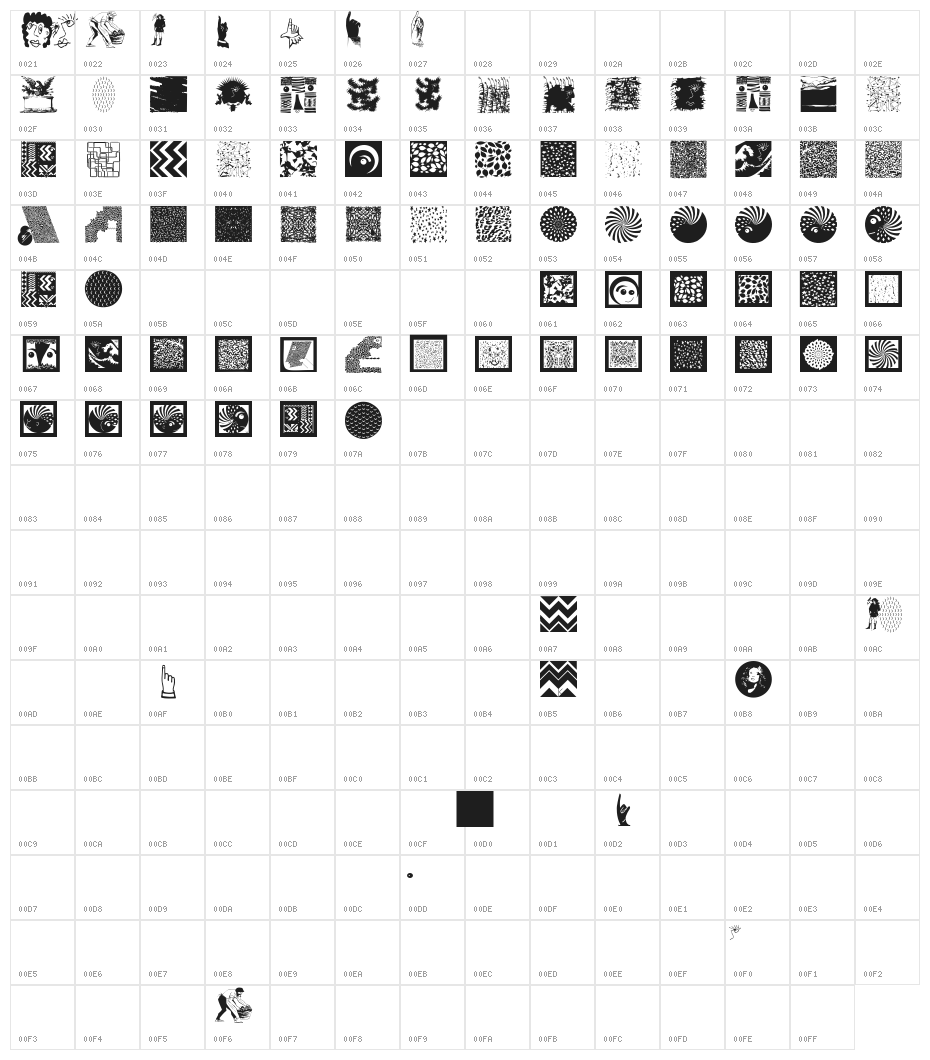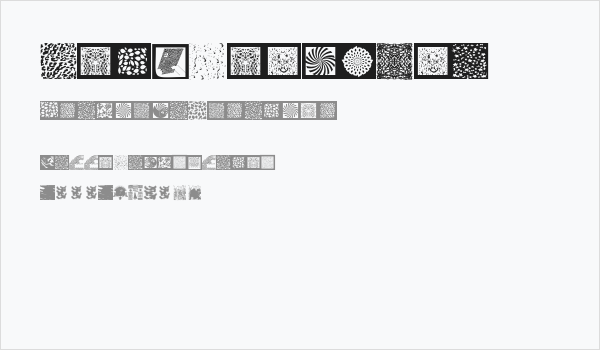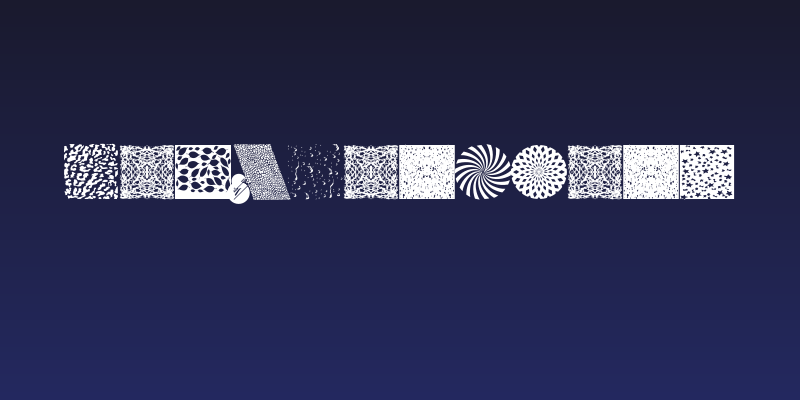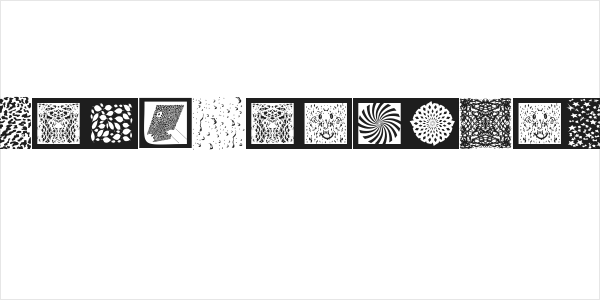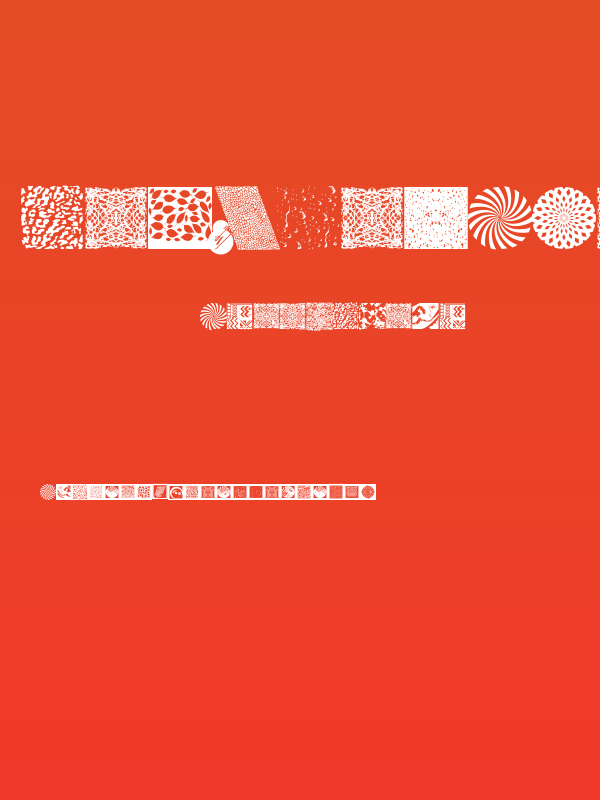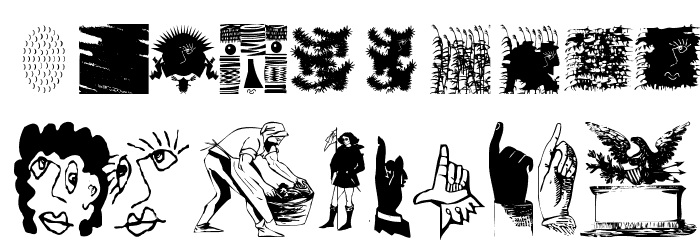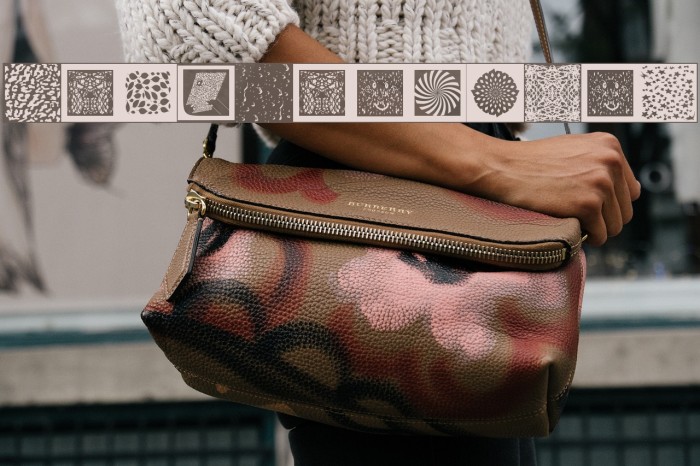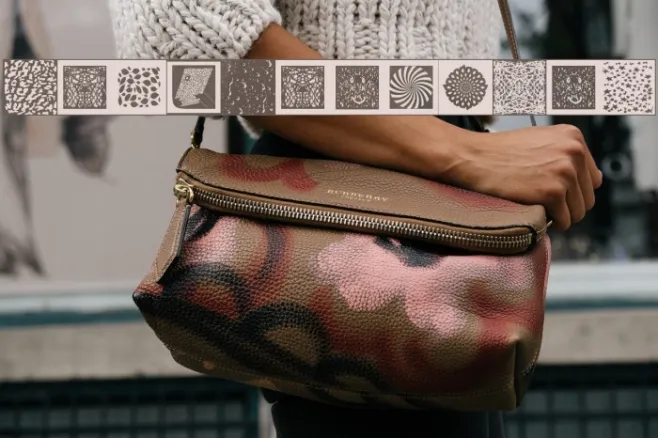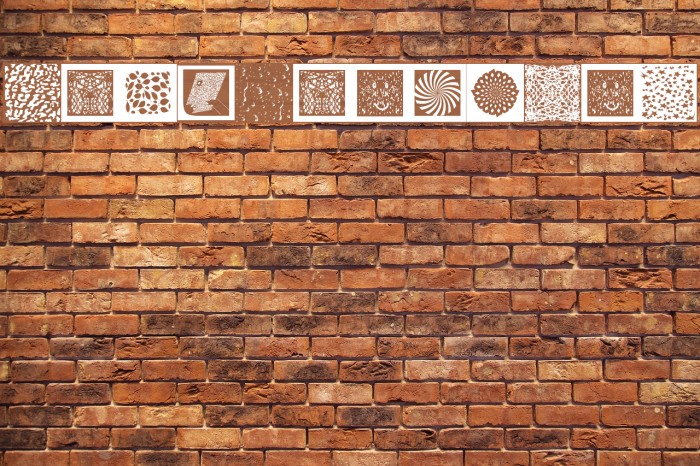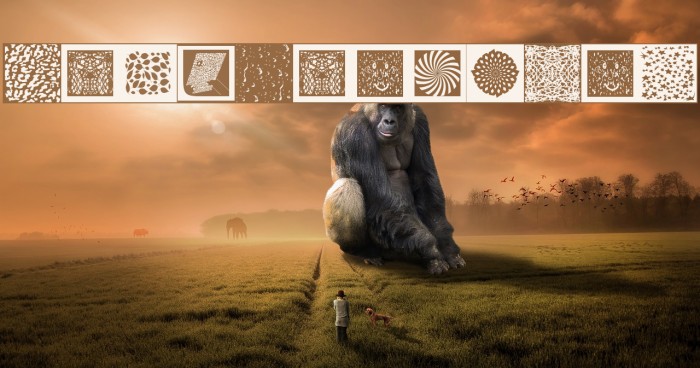
RockFontsOne Font
RockFontsOne Description
A highly decorative and eclectic collection of black-and-white graphic symbols, abstract patterns, and expressive illustrations, featuring a mix of geometric textures, swirling motifs, stylized faces, hands, and various artistic sketches. The glyphs are bold, visually striking, and vary widely in style, with some being abstract and others more figurative.
| Overall Style | Decorative, Artistic, Eclectic |
| Use Case | Logos, Posters, Illustrations, Decorative elements |
| Proposed Projects | Posters, album covers, editorial illustrations, branding for creative industries, zines, art projects, event flyers. |